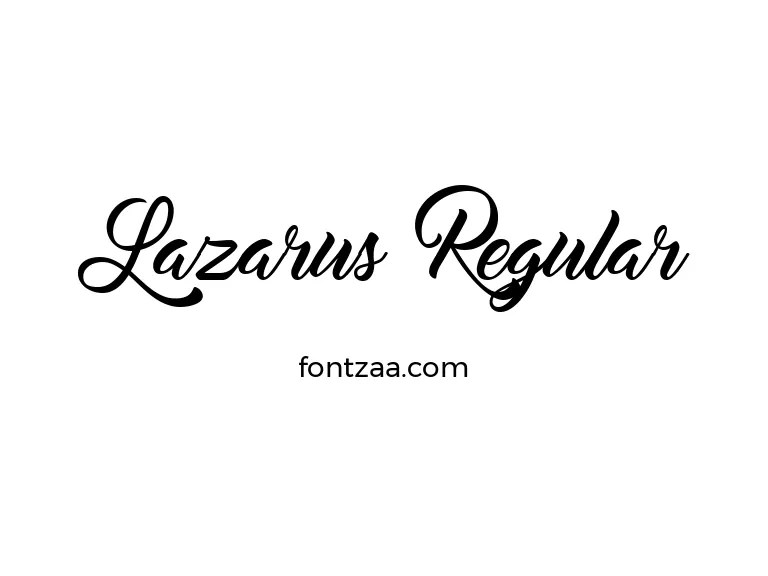
Lazarus Regular Font
Lazarus Regular Font is an elegant typeface published by Unknown Publisher. The download includes 1 font file (TTF) with 147 glyphs, covering uppercase and lowercase letters, common punctuation and currency symbols. Numerals are not included, so use another font for dates and prices. It suits invitations, wedding stationery, signatures, quotes and elegant branding, particularly at larger sizes where the letter shapes are easier to see.
Lazarus Regular Font Alphabet Preview
Pairing and Use
For body text, pair Lazarus Regular Font with a clean sans serif such as Montserrat or Lato and keep the font itself for headlines and key words.